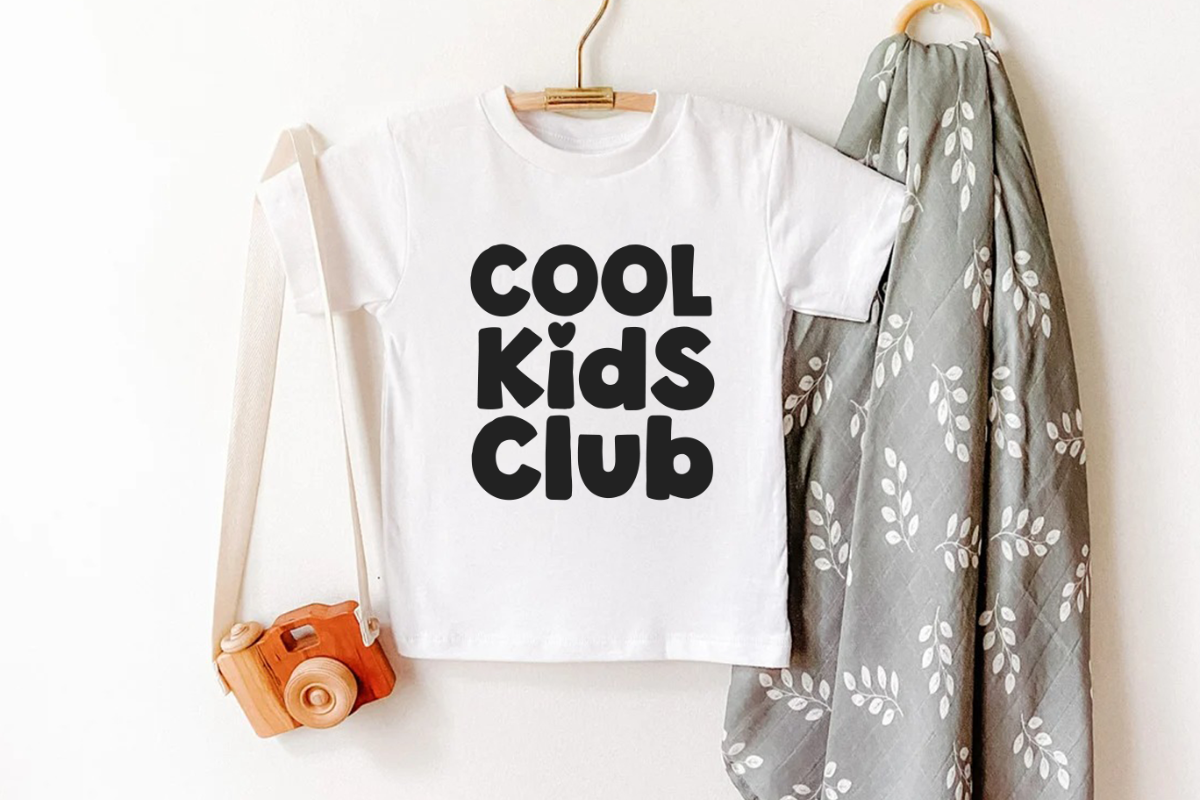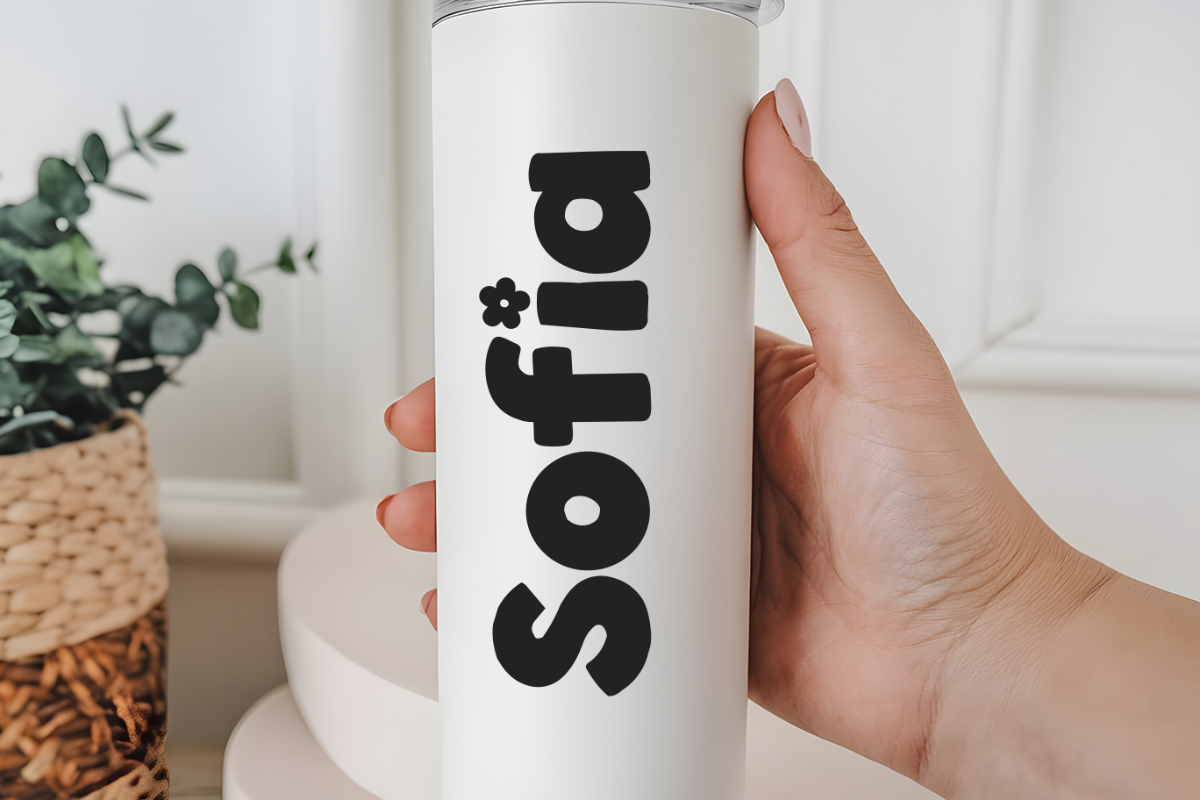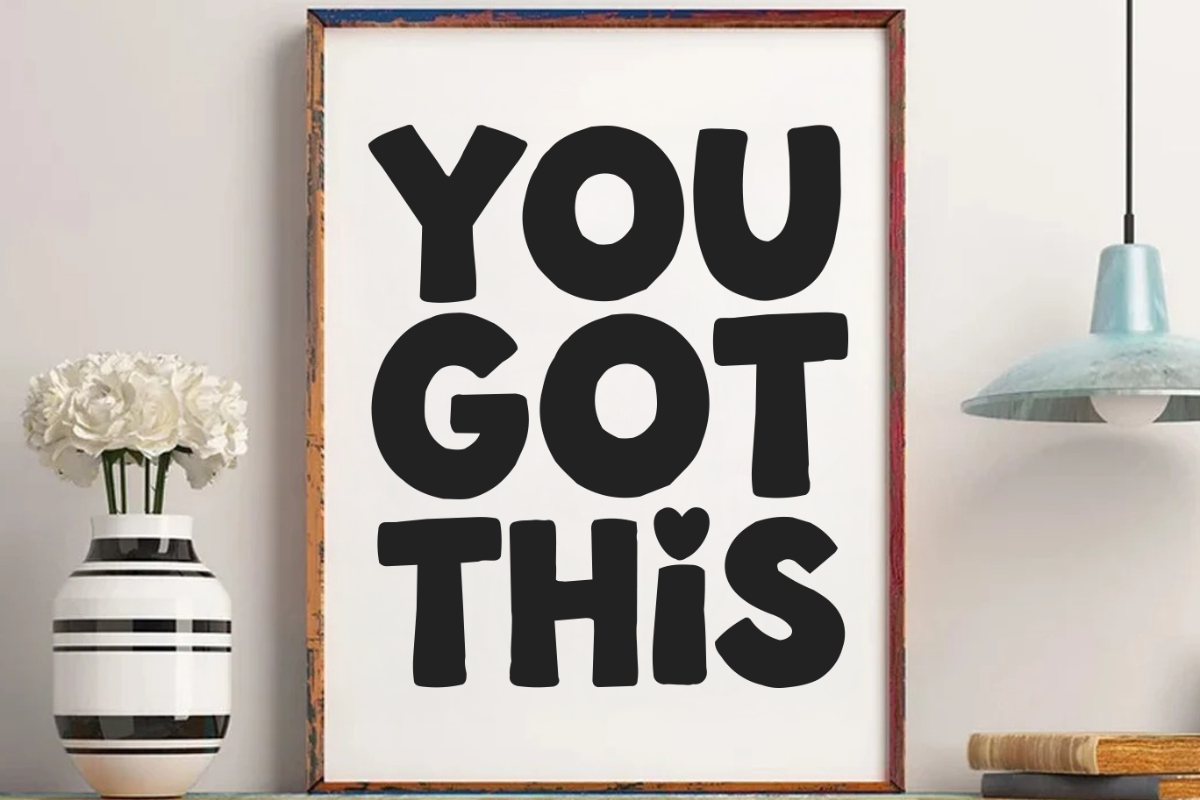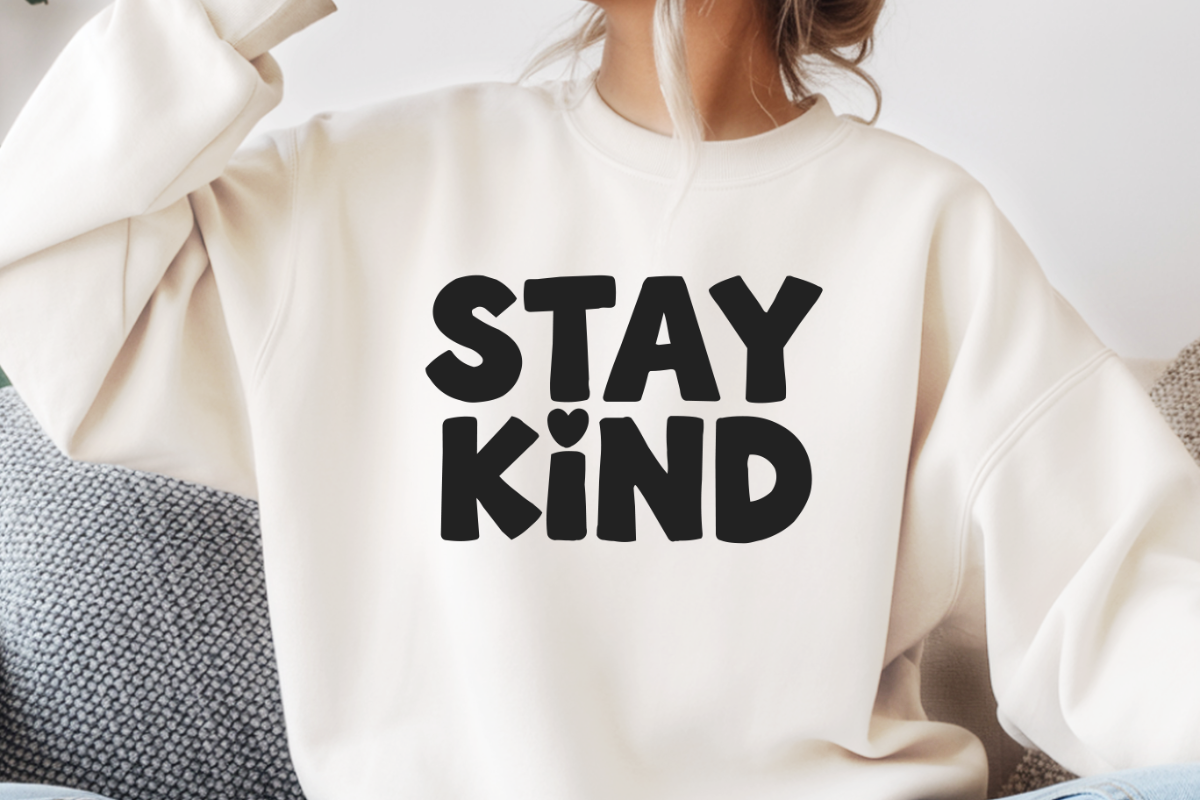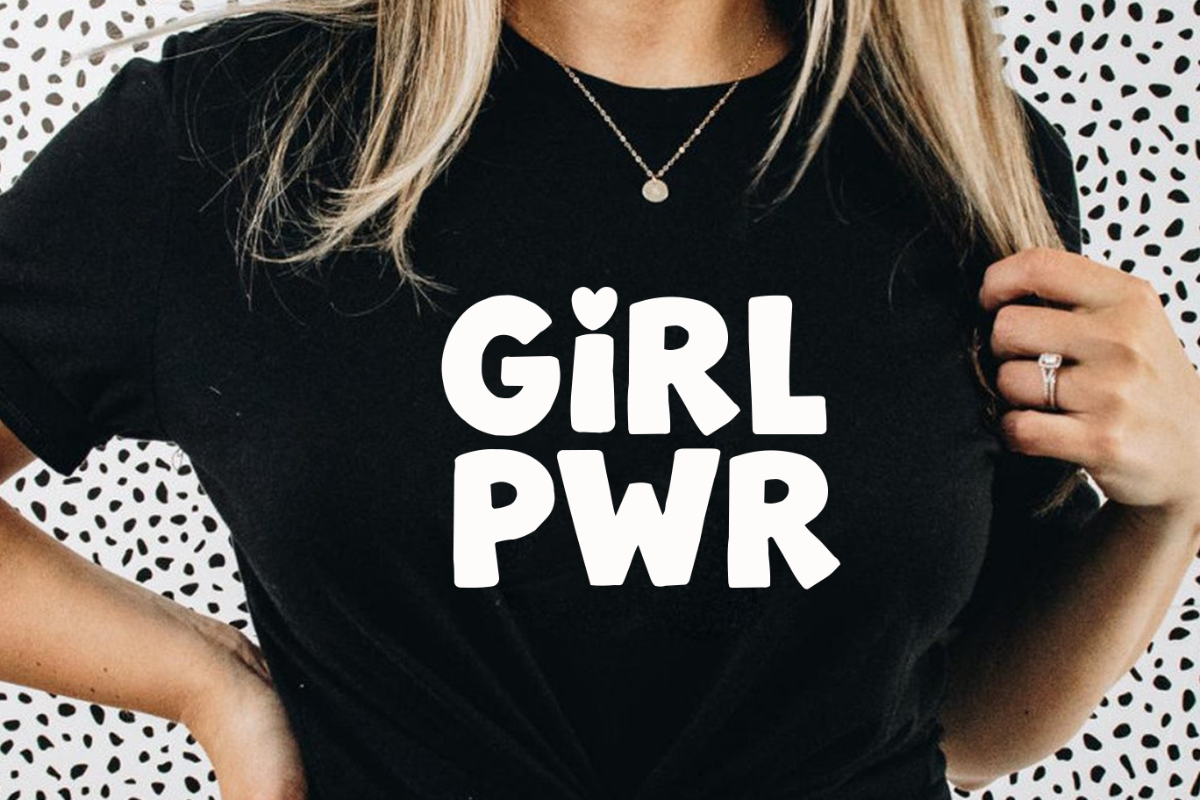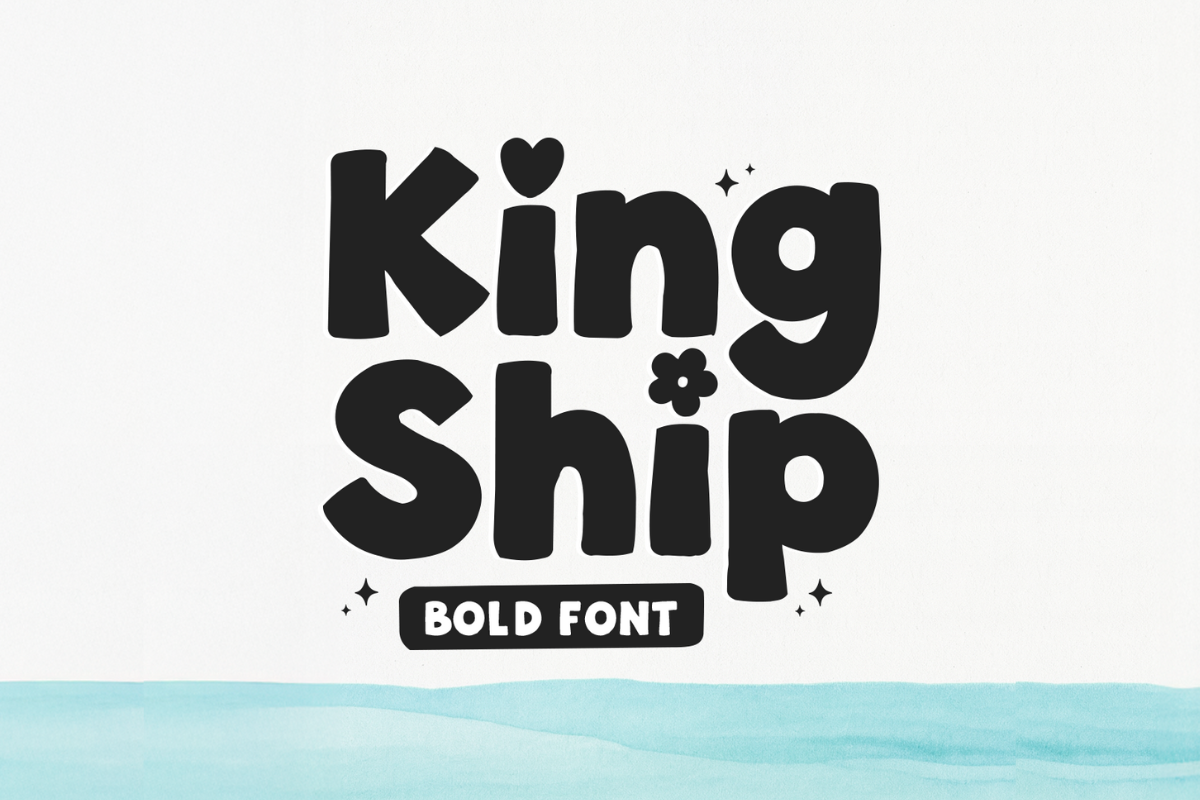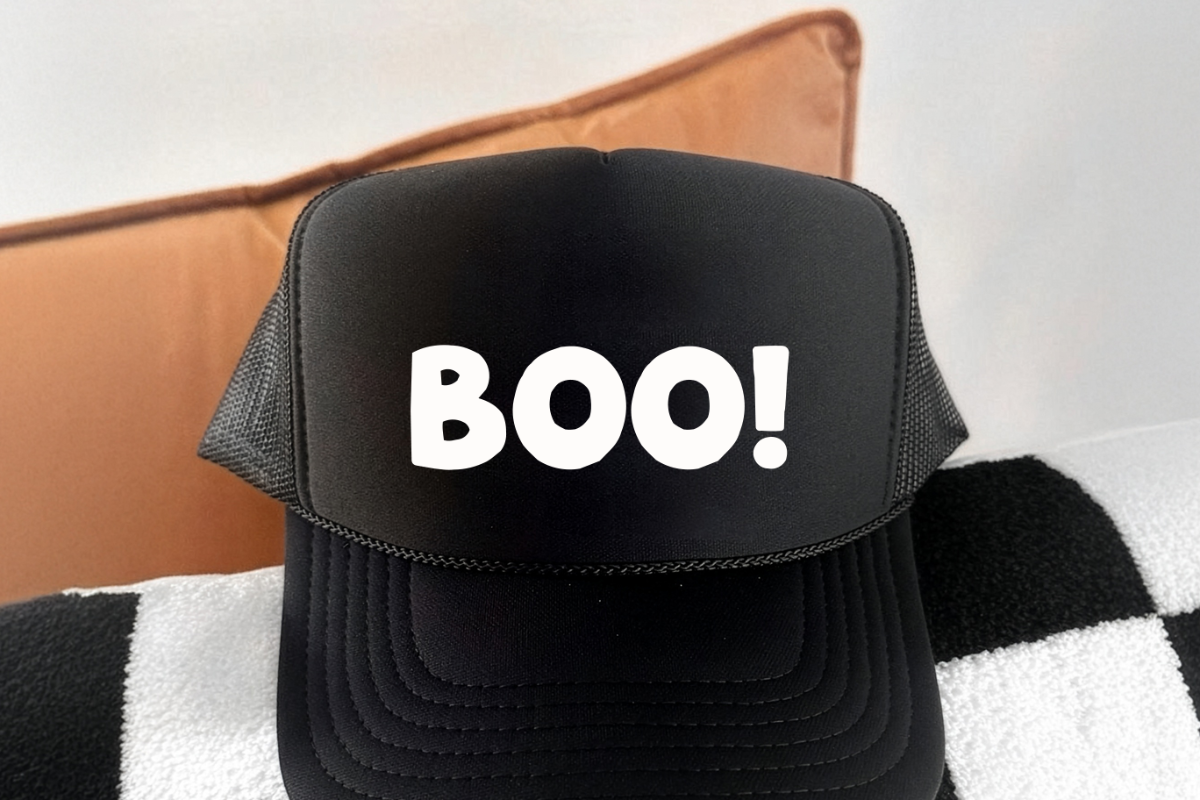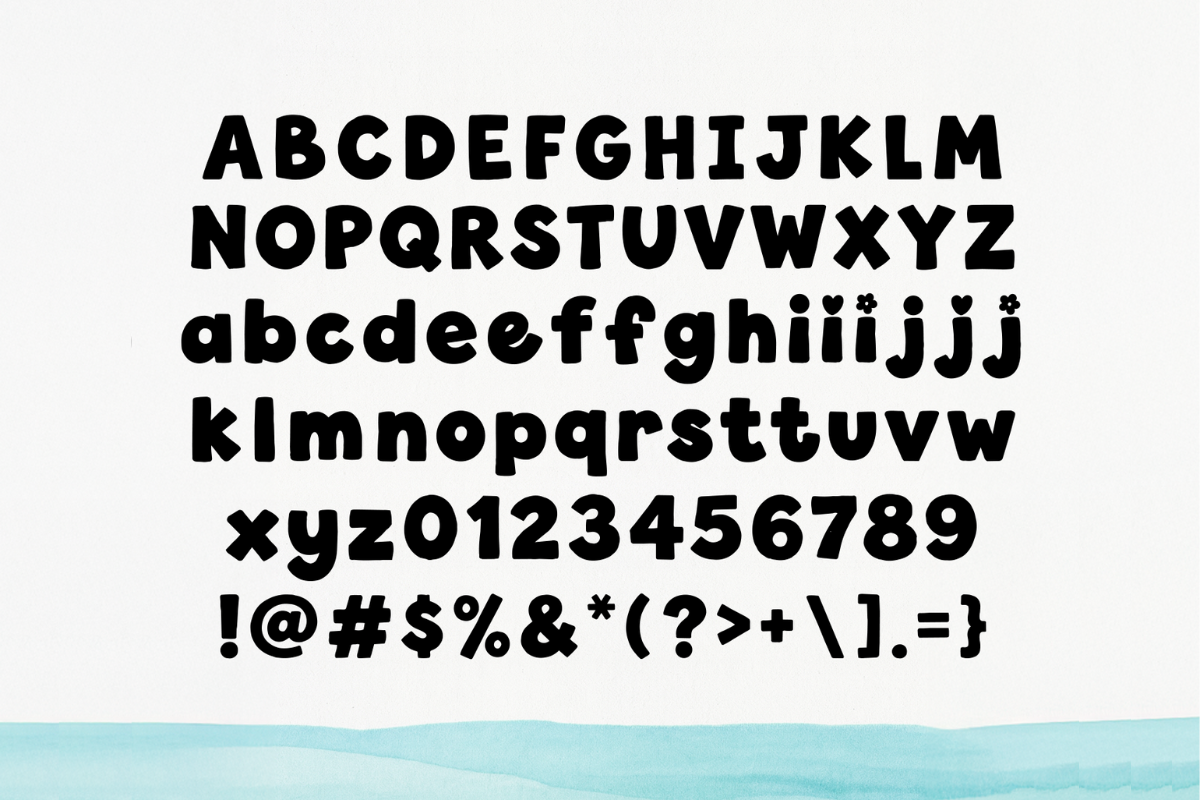
King Ship - Handwritten Bold Font
King Ship is a modern handwritten bold font. It has beautiful and well-balanced characters and as a result, it matches a wide pool of designs. It is the best choice for creating eye-catching logos, branding, and quotes. Add it to your most creative ideas, and notice how it makes them come alive!